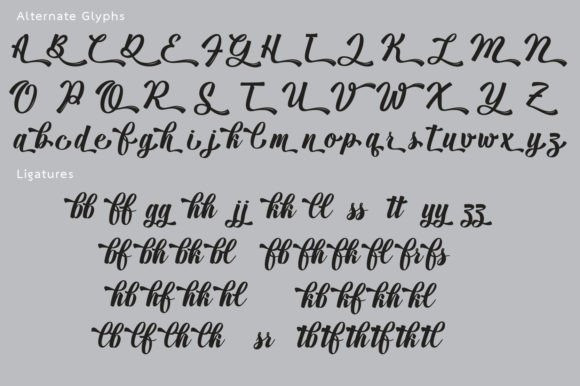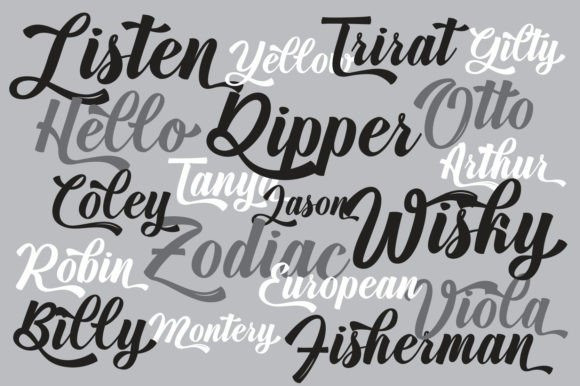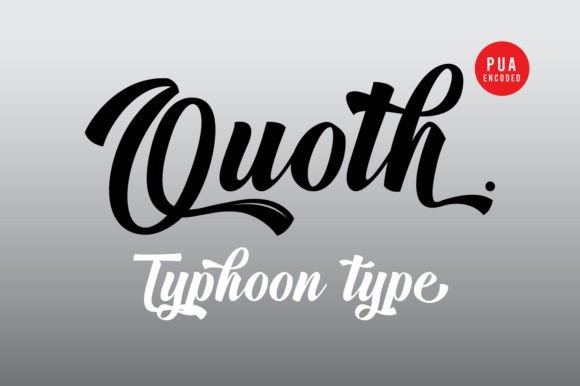
Quoth Font
Quoth Font is a beautifully designed font that captures the essence of brush strokes and freeform handwriting. Its soft and delicate appearance makes it perfect for use in print media, such as magazines and ads, as well as on clothing and apparel.
The font features a unique combination of thick and thin strokes that create a sense of movement and flow, as well as intricate details that add to its overall elegance. The capital letters are particularly striking, with their long and graceful tails that add a touch of sophistication to any text.
Quoth is a versatile font that can be used for a wide range of applications, from editorial design to branding and advertising. It is ideal for headlines, subheadings, and body copy, and its readability ensures that it is easy on the eyes, even when used in longer texts.
Overall, Quoth is a standout font that is sure to capture the attention of anyone who sees it. Its combination of beauty, elegance, and readability makes it a great choice for designers who want to add a touch of sophistication to their projects.